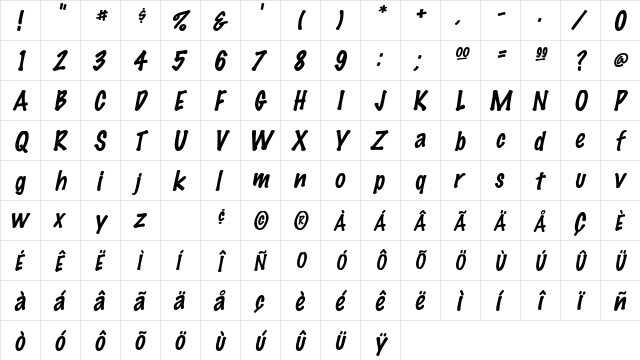
MarkerBoardSSK Italic
Design Context for MarkerBoardSSK Typeface
MarkerBoardSSK is a composed and adaptable typeface that performs quietly and consistently across a wide range of design contexts. The dynamic lean of this cut emphasises speed and emphasis in any layout.
Pro Tip: Try MarkerBoardSSK for annotation and caption copy alongside an upright companion — the contrast in angle creates a dynamic but ordered typographic system.